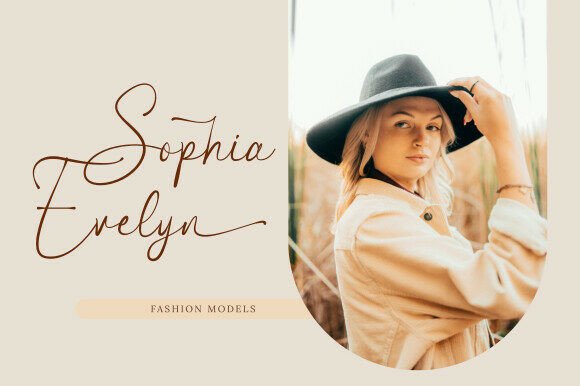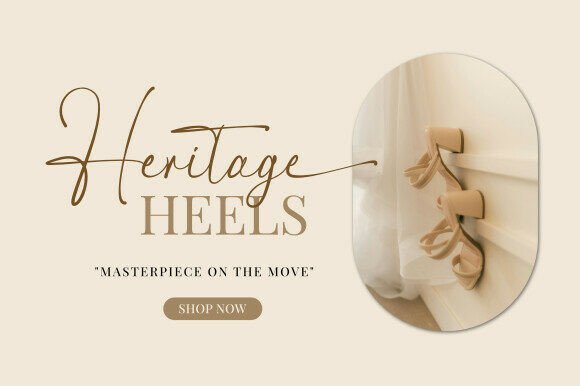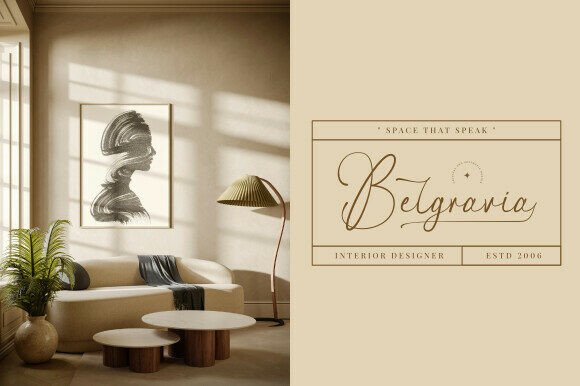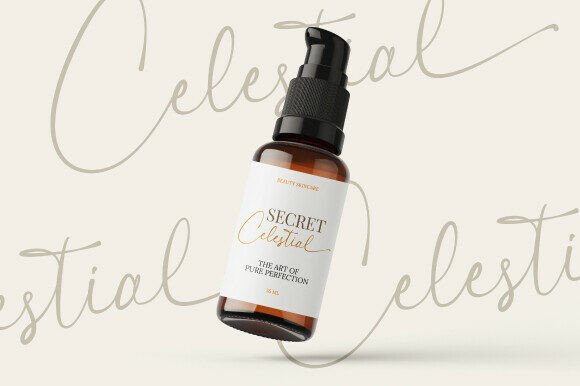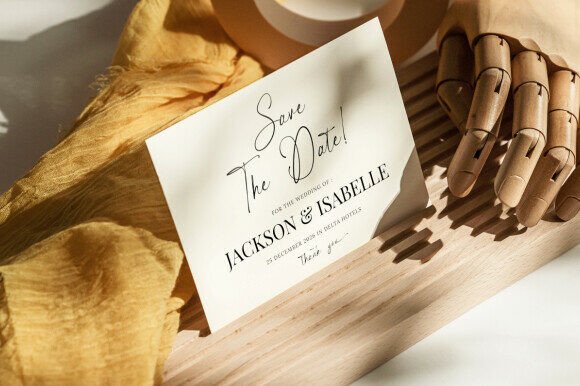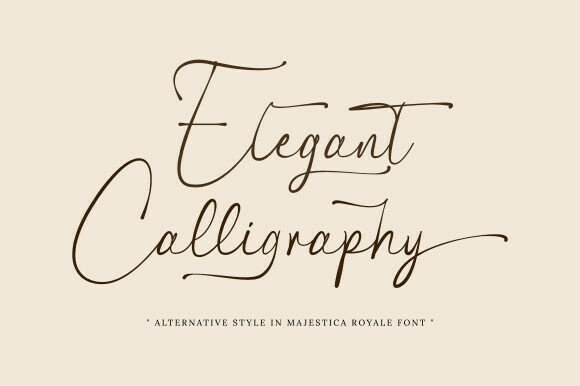
Introduction to Majestica Royale Font
Elevate your visual storytelling with the refined grace of Majestica Royale, a modern and luxury script font.
This typeface features a slender, rhythmic anatomy with tall, elegant ascenders and a fluid, connected flow that captures the essence of contemporary high-end calligraphy Majestica Royale is an extraordinary choice for luxury boutique branding, romantic wedding invitations, avant-garde cosmetic packaging, and cinematic editorial headers.
Key Features of Majestica Royale Font